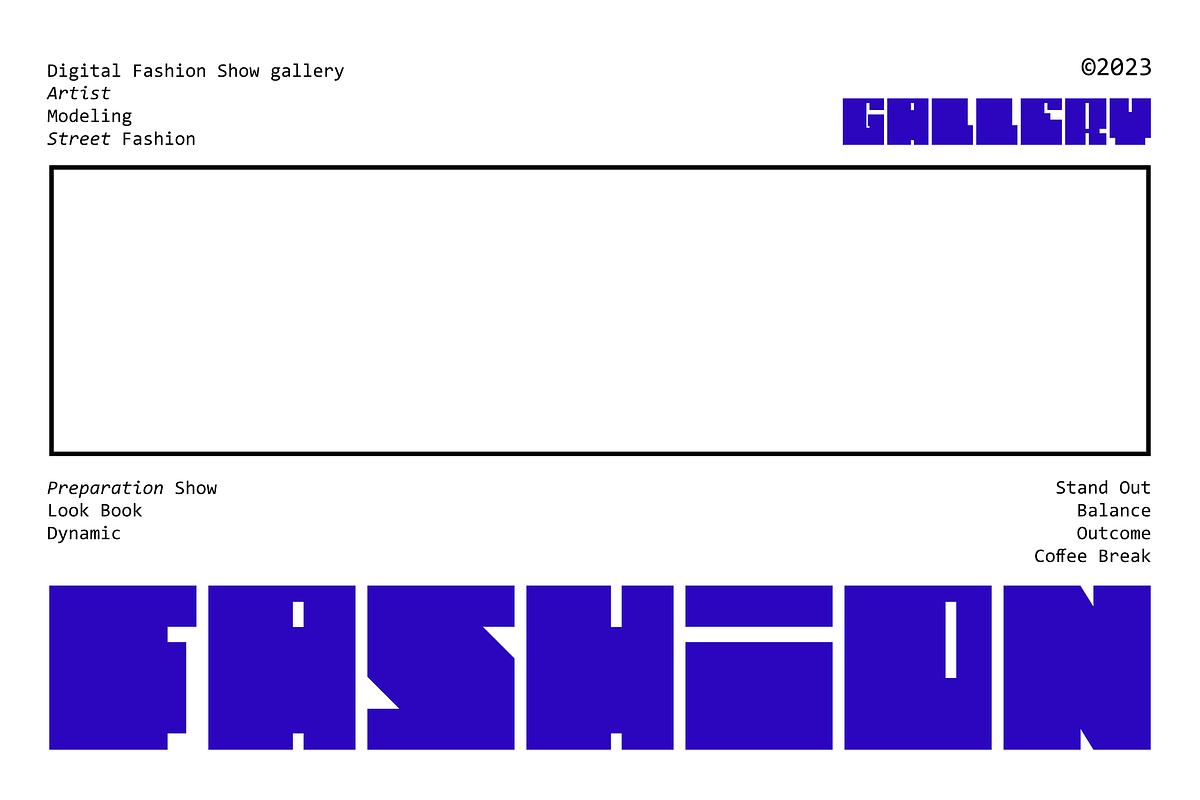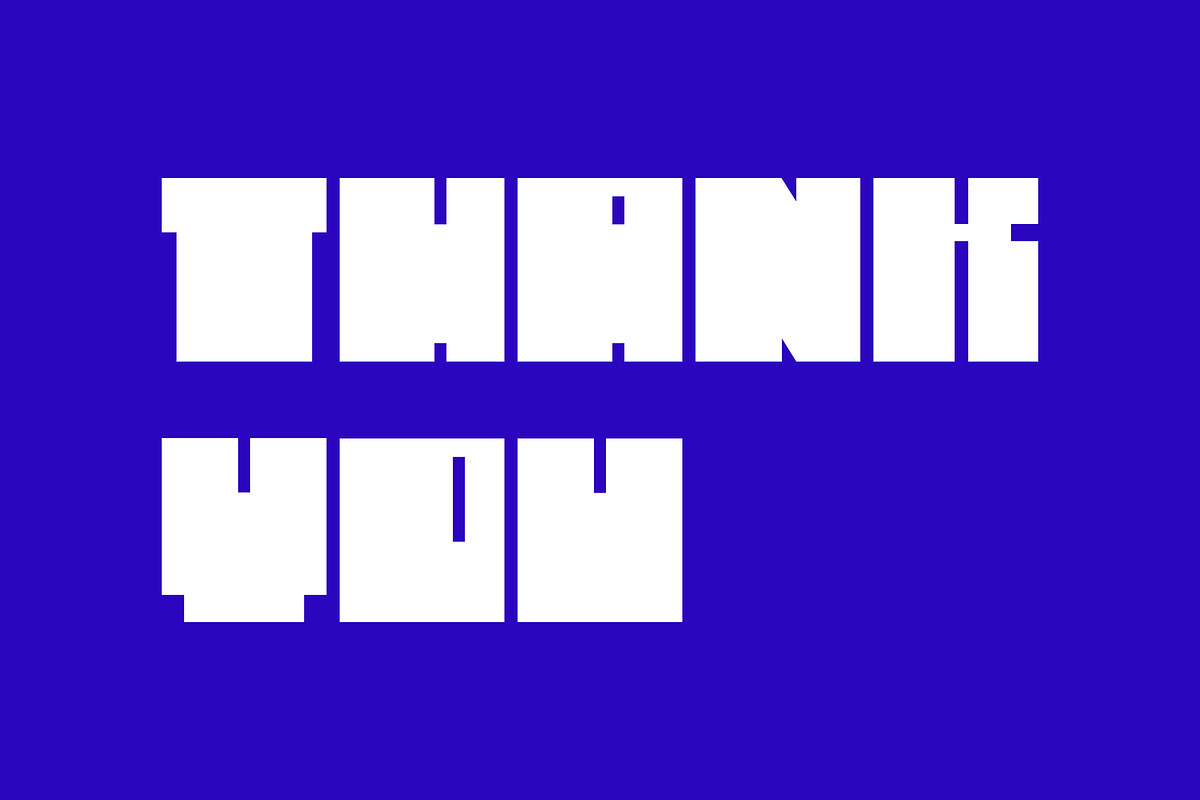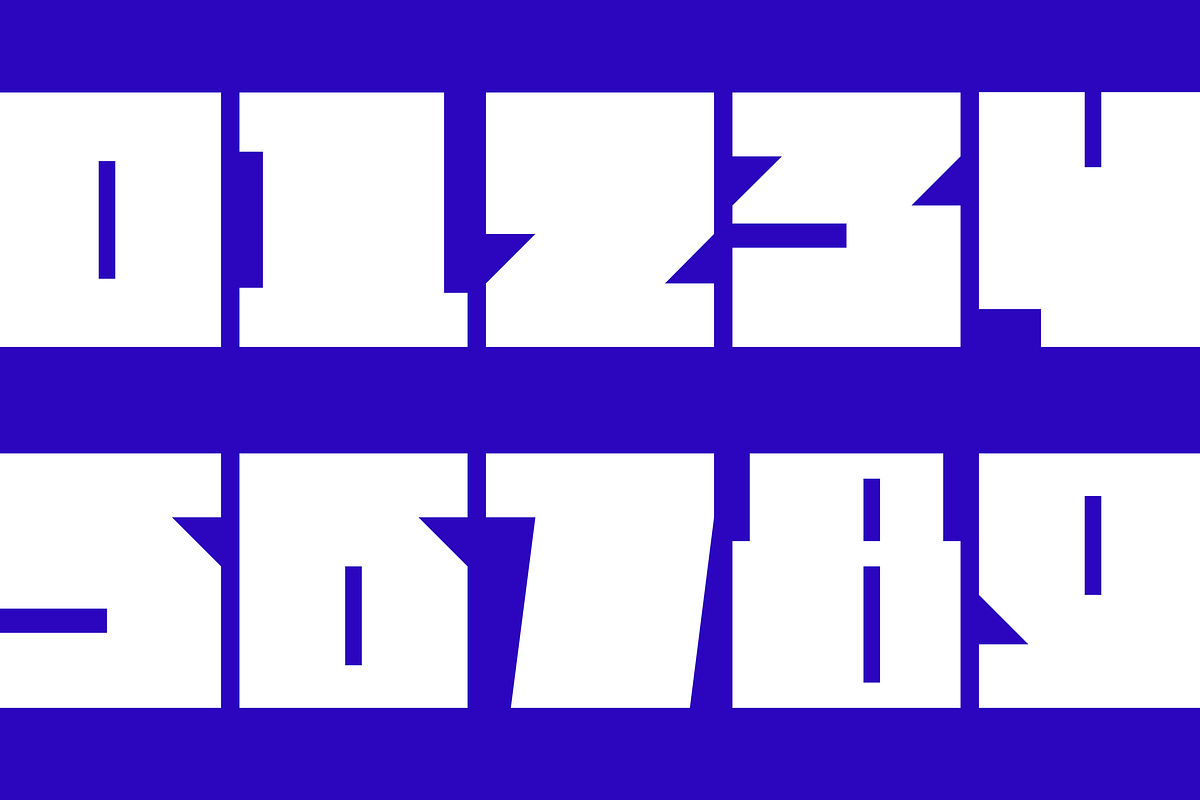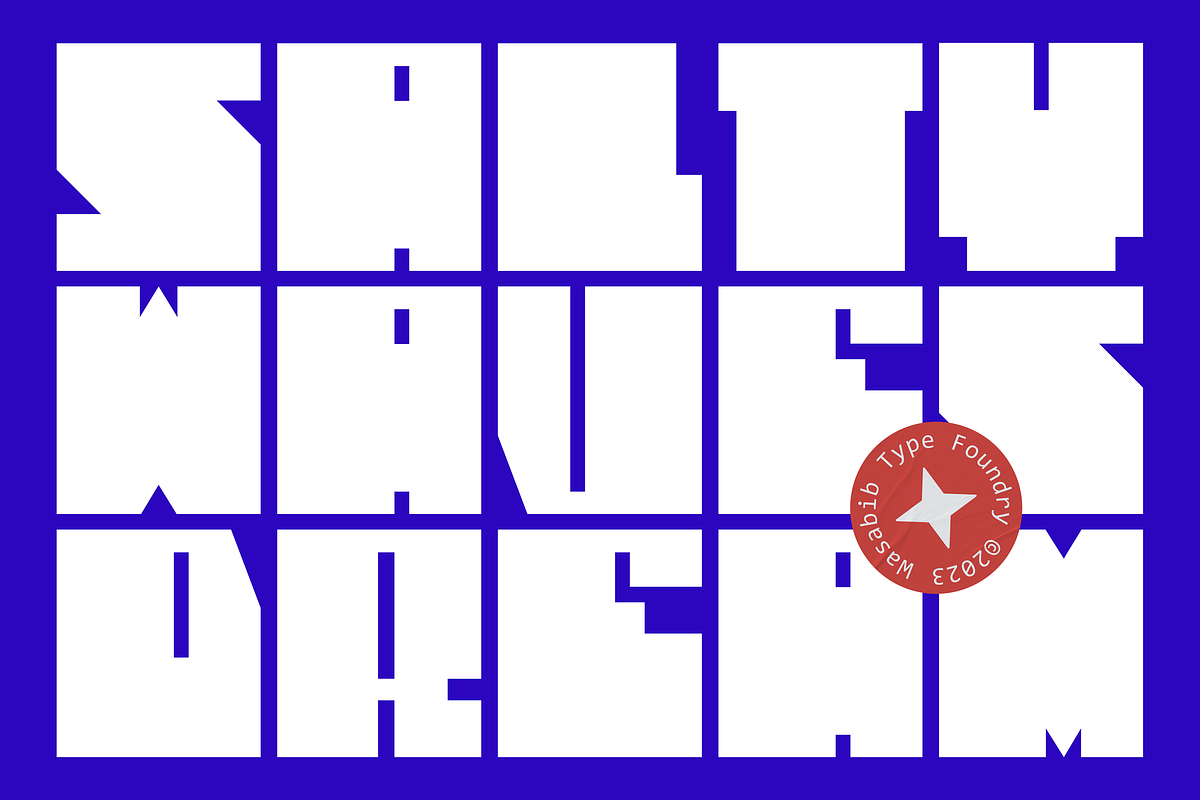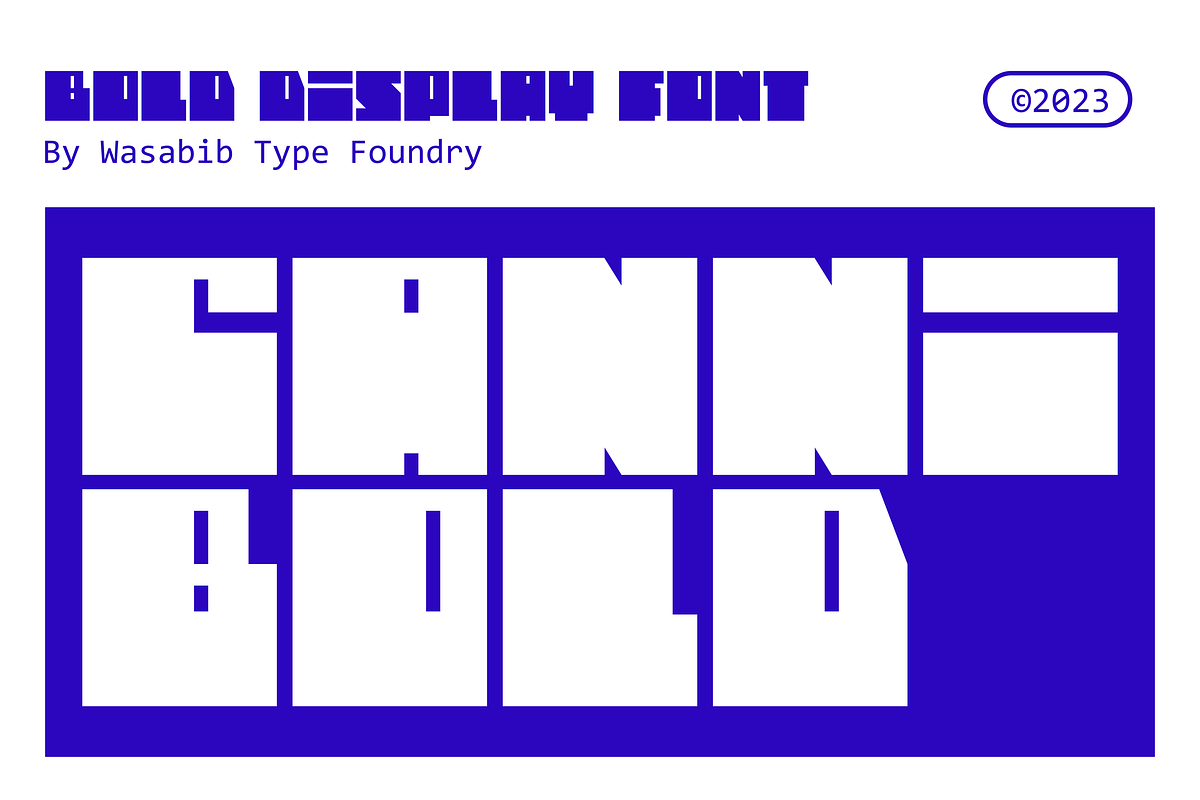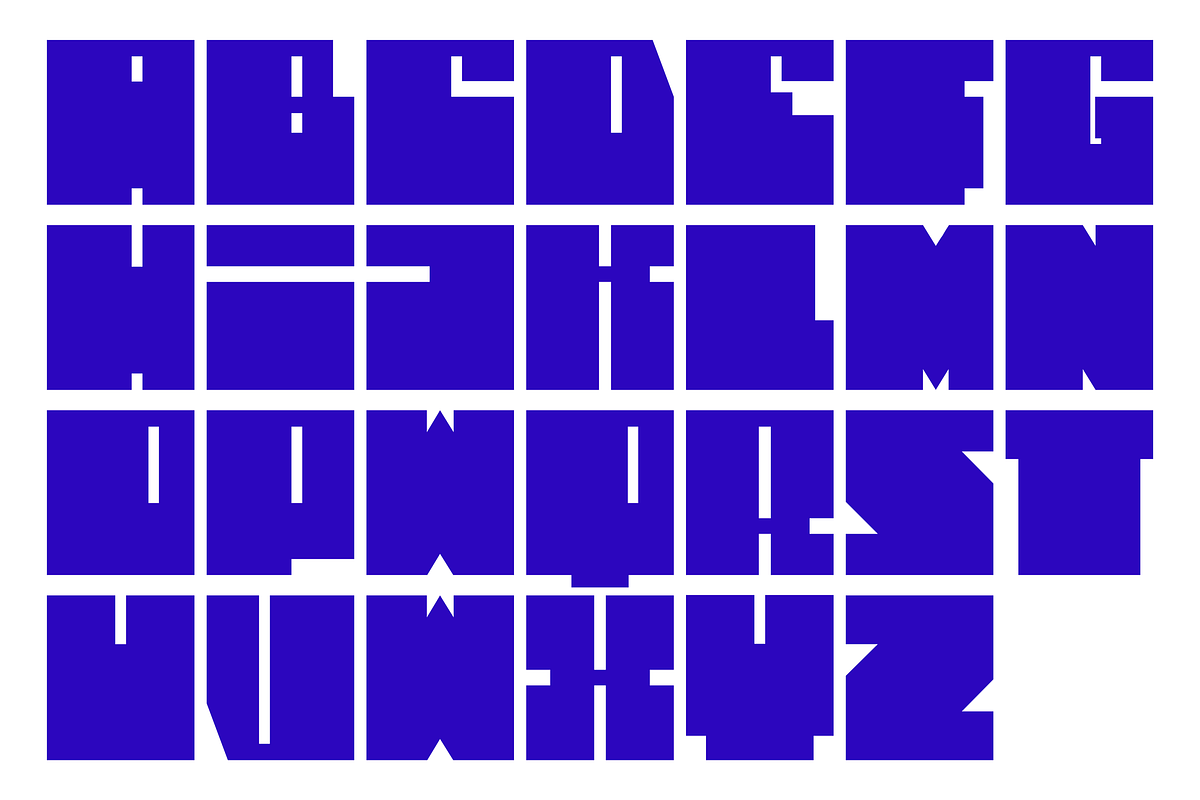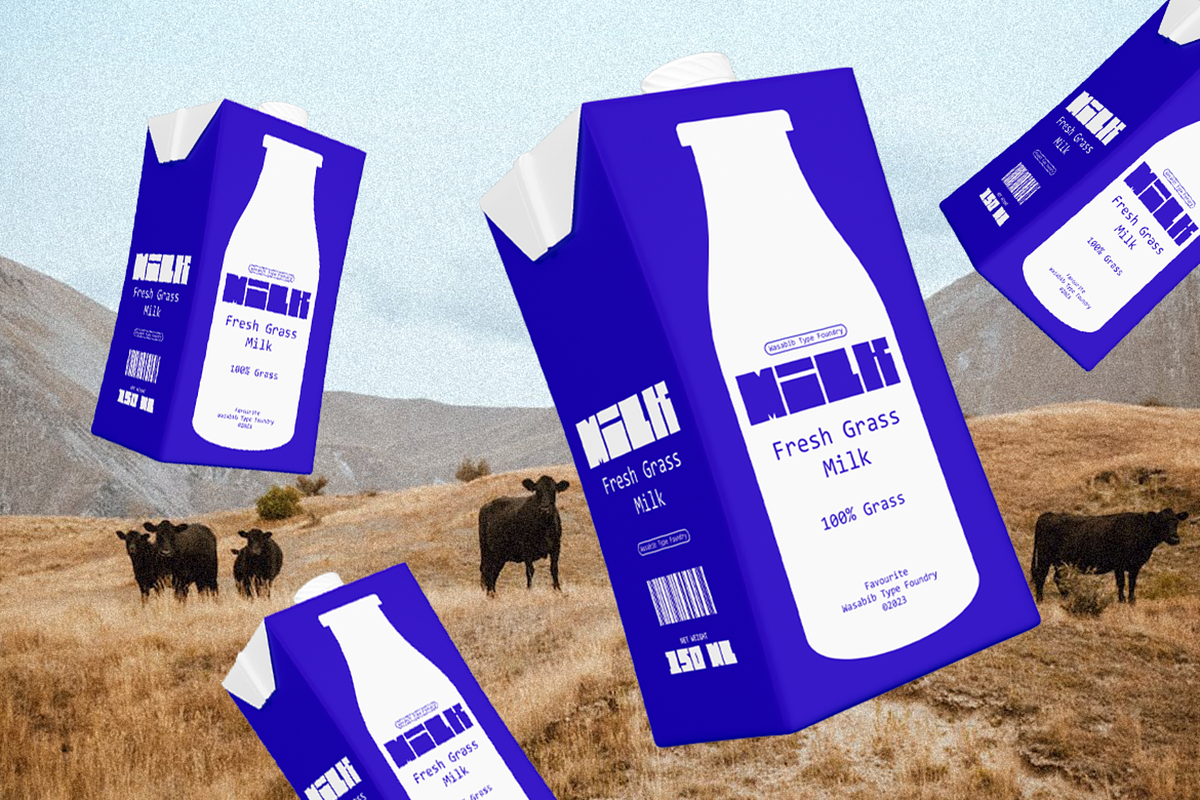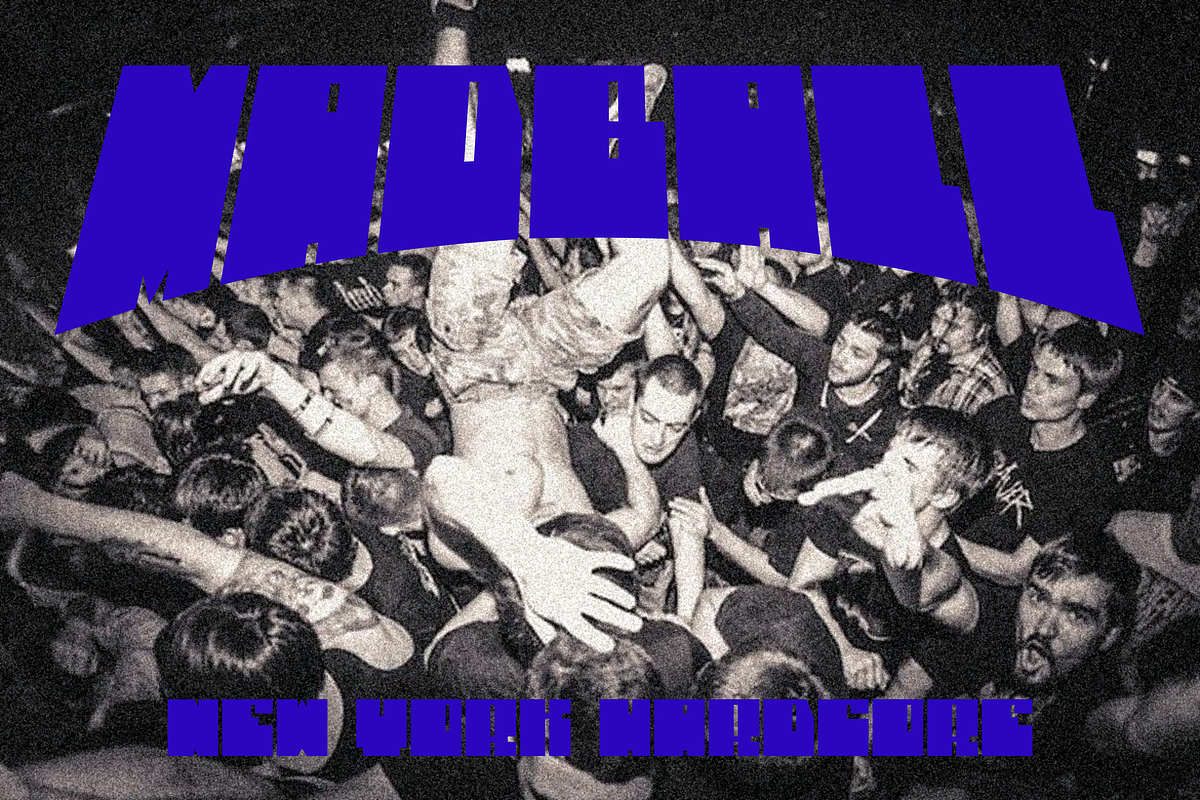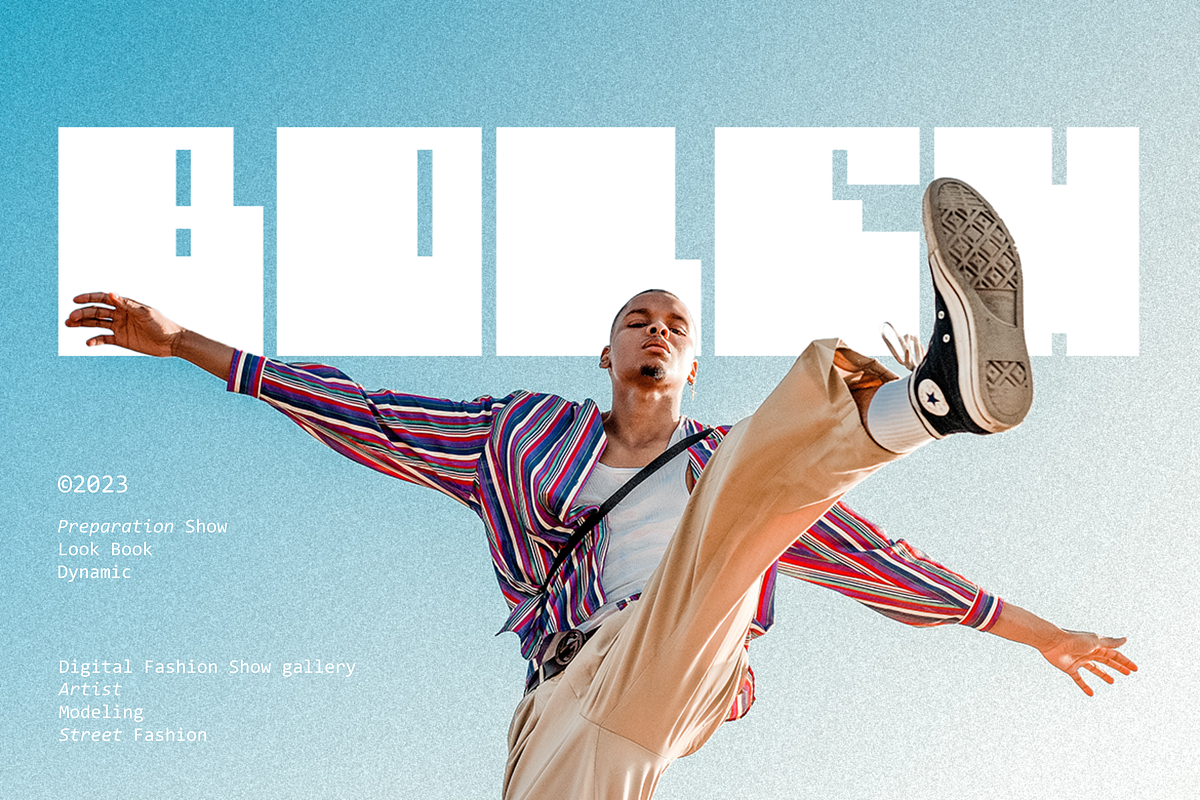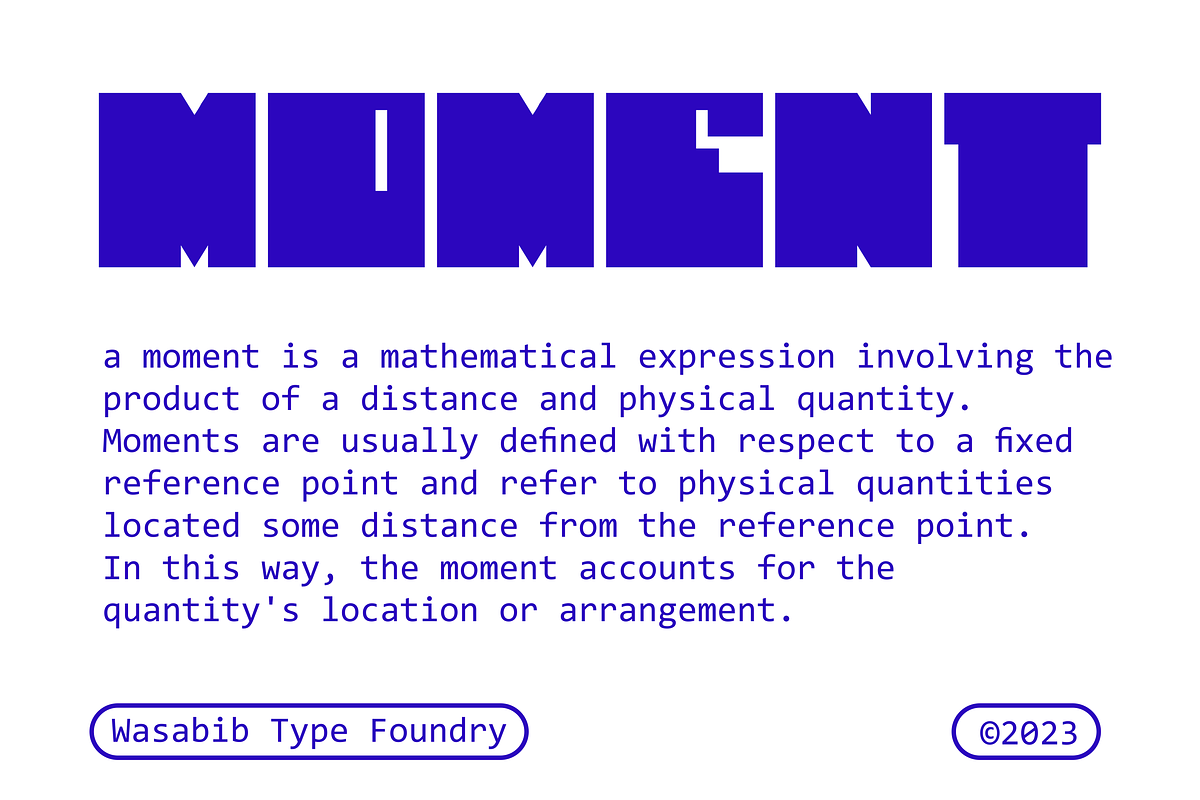
Cannibold
Cannibold is a striking display font characterized by its bold weight and distinctive square shapes. This modern typeface conveys a sense of strength and confidence, making it ideal for headlines, branding materials, and packaging design. Its clean lines and sharp aesthetic contribute to a visually impactful experience, capturing attention and leaving a lasting impression.